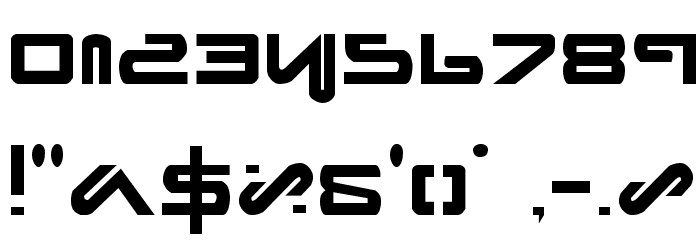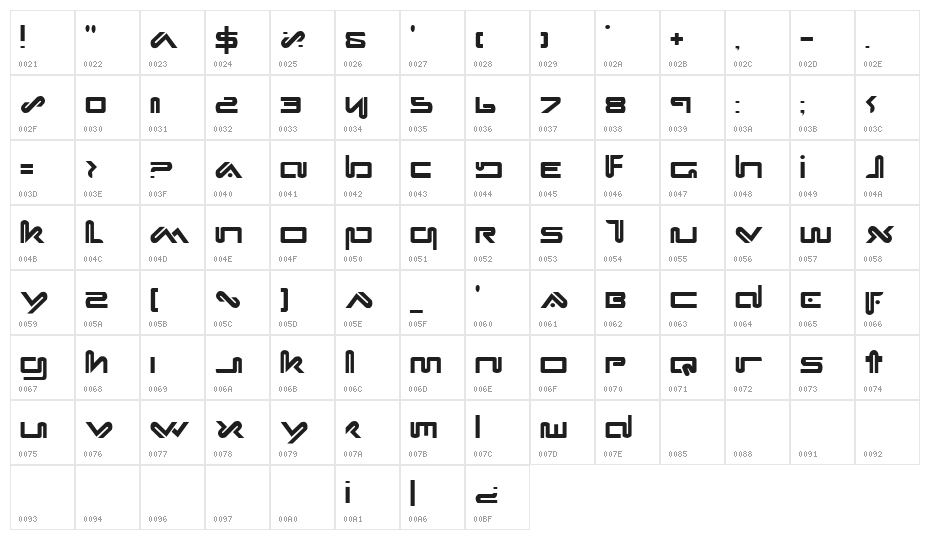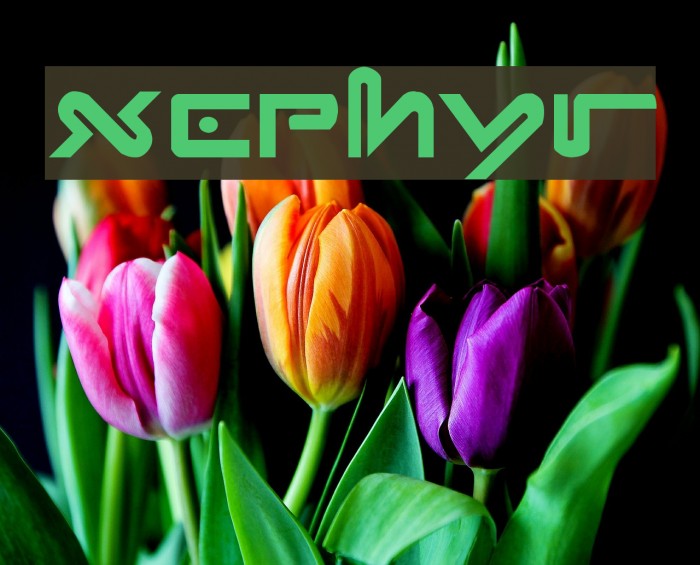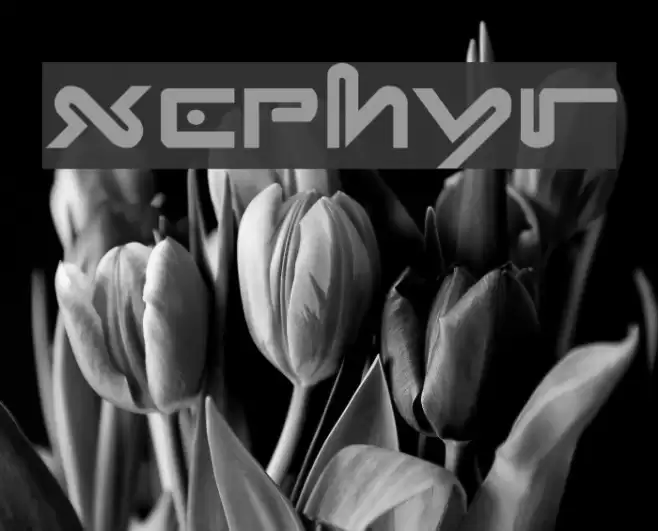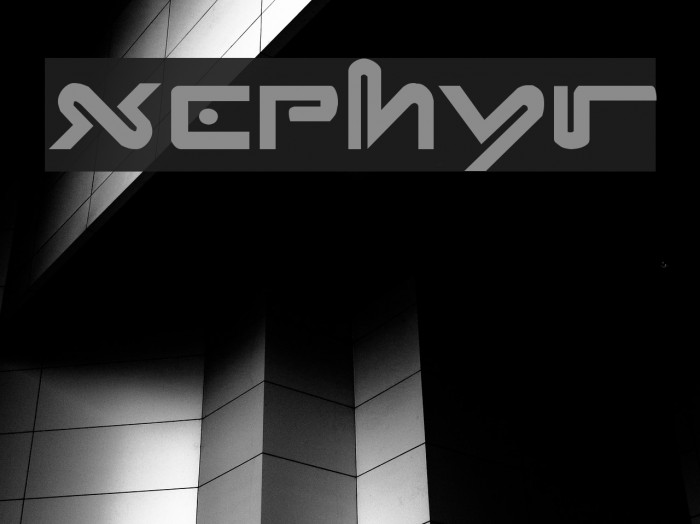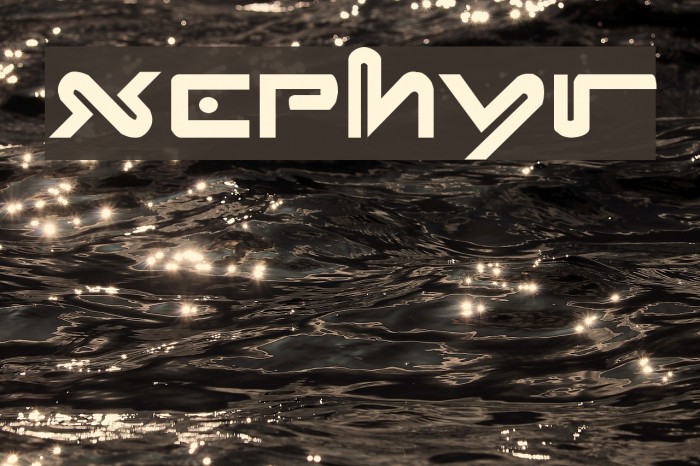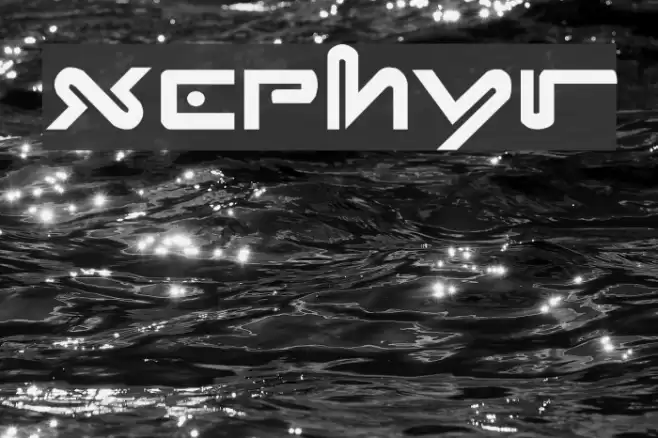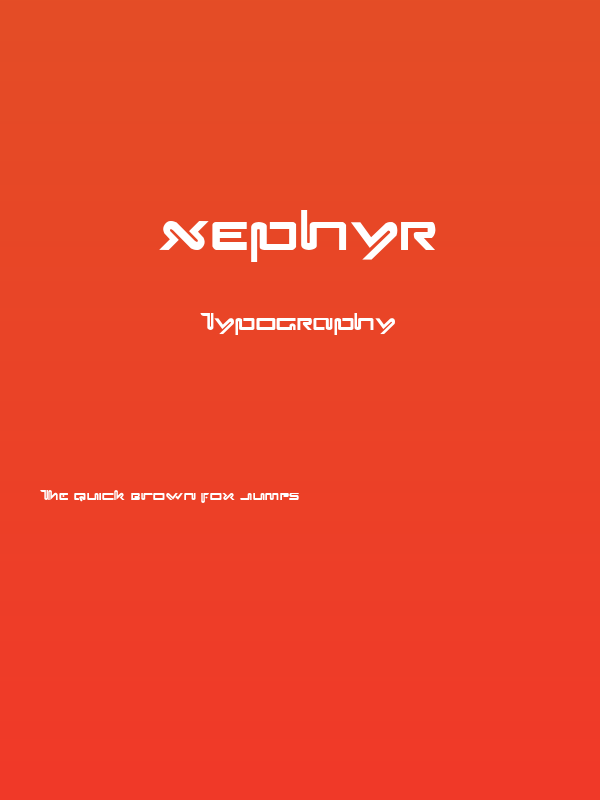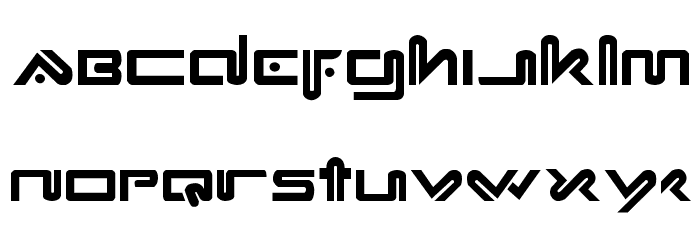
Xephyr Font
Xephyr Description
This font exhibits a futuristic and geometric style, characterized by its bold and angular letterforms. The characters are designed with sharp edges and unique cutouts, giving them a distinct, tech-inspired appearance. The uppercase and lowercase letters maintain a consistent design language, with a focus on symmetry and balance. The numerals and special characters follow the same aesthetic, ensuring a cohesive look across all glyphs. This font's modern and innovative design makes it suitable for projects that require a cutting-edge and dynamic visual identity.
| Proposed Projects | Ideal for technology branding, sci-fi movie posters, video game titles, and modern digital interfaces. |